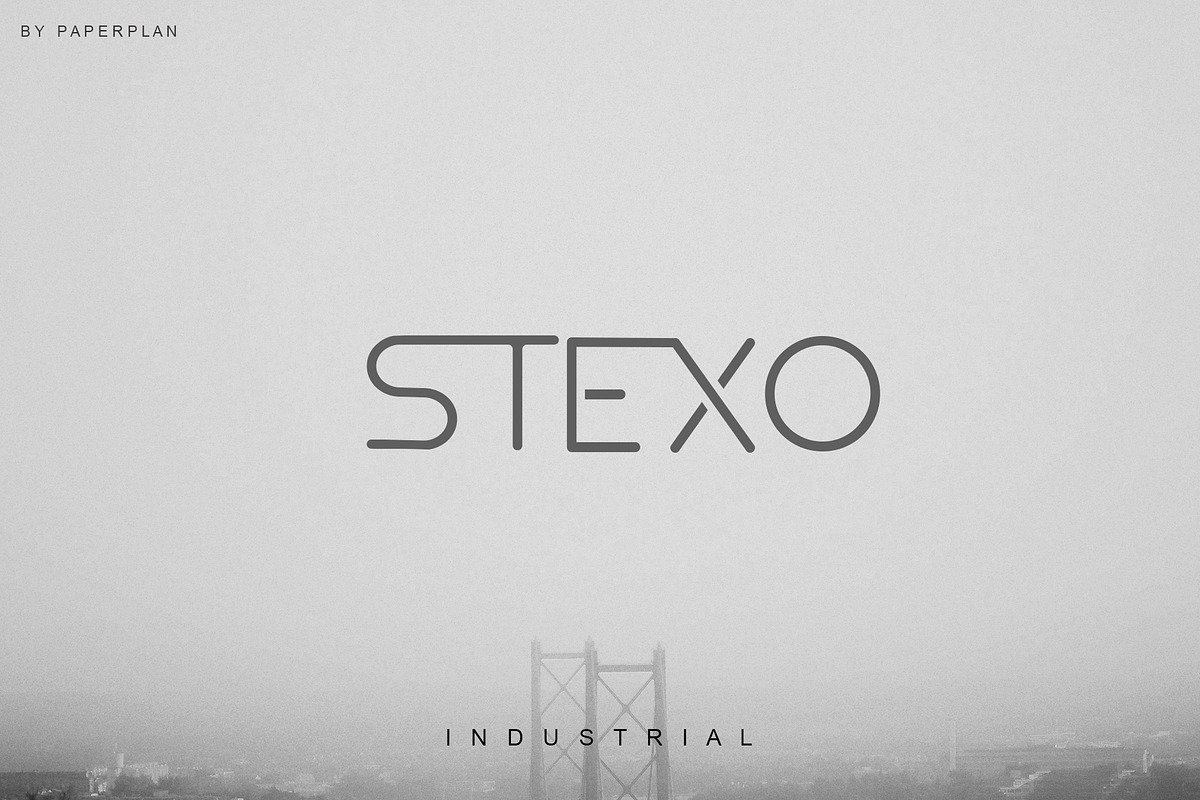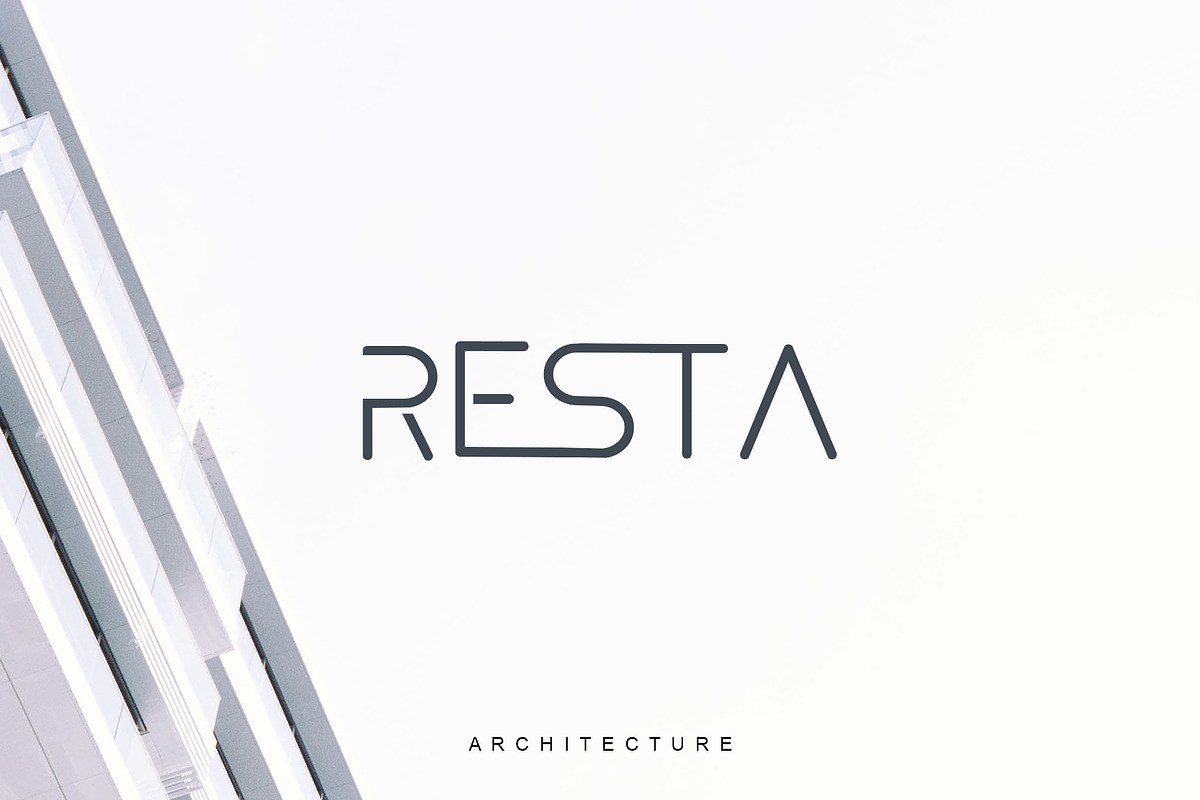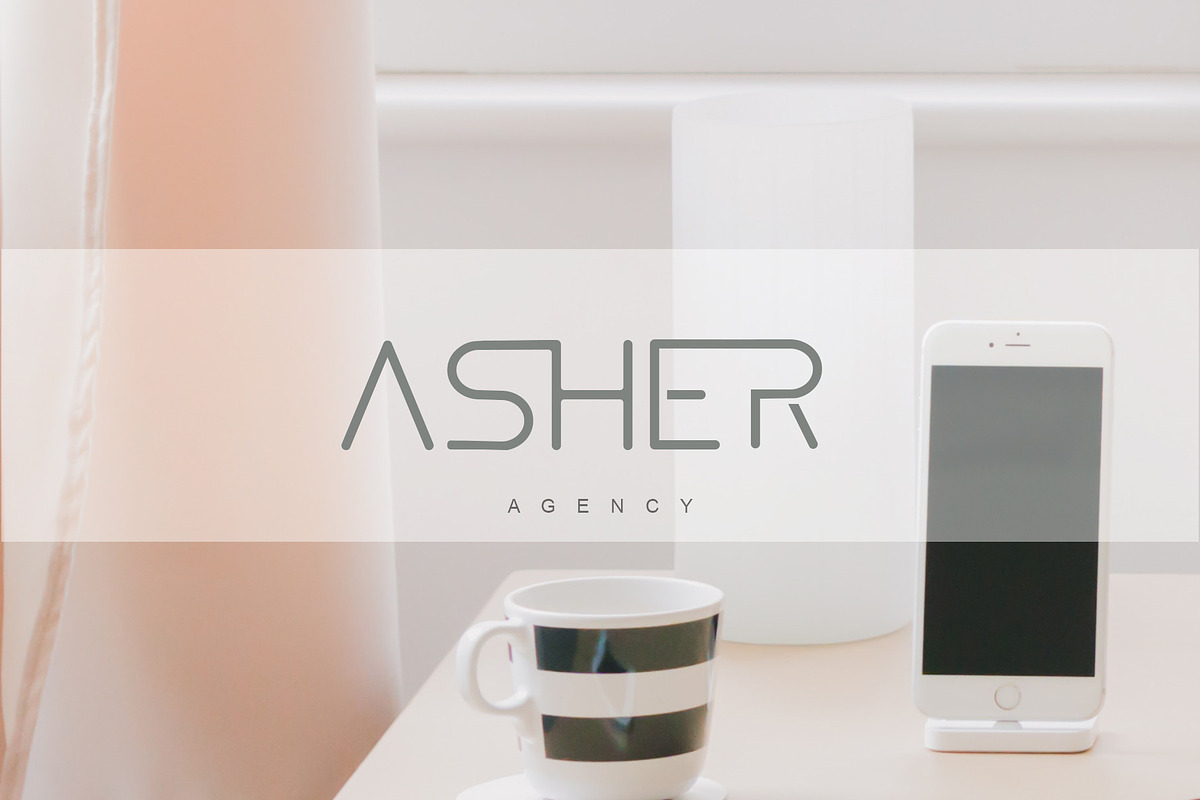
Sans Serif
About ASTRO Font
ASTRO is a sleek, futuristic geometric font featuring clean lines, rounded curves, and a minimalist aesthetic. Perfect for modern branding, technology, architecture, logos, and premium editorial designs.
Ideal Usage
- — Brand Identity & Logotypes
- — Editorial Headlines & Magazines
- — Product Packaging & Labels
- — Posters, Titles & Book Covers
Sans Serif Typeface